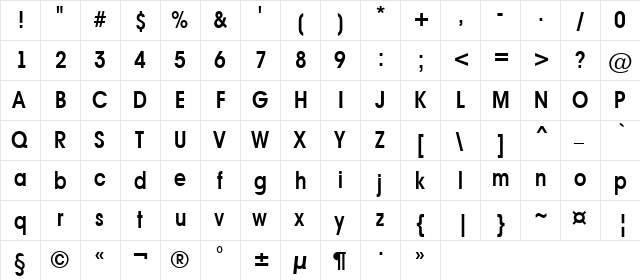
a_AvanteLtNr SemiBold
Design Context for a_AvanteLtNr Typeface
a_AvanteLtNr takes a measured approach to typography — its balanced proportions and neutral character make it a reliable workhorse for both digital and print work. The heavy weight commands attention and anchors typographic hierarchies.